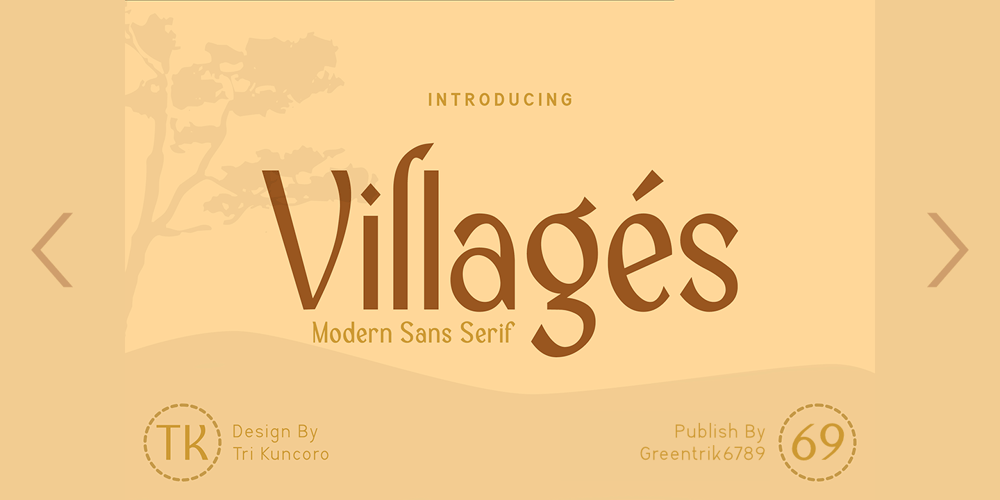
Villages Font Family was designed by Tri Kuncoro and published by Greentrik6789. Villages contains 6 styles and family package options. Villages is a combination of serif and sans serif that produces a sans serif font with an elegant and modern look, comes in 3 weights with an italic style for each weight, and several alternative characters that you can use to suit your design needs.Use this font for craft projects, logos, posters, books, promotions, and any of your design needs that require a clean and elegant look!